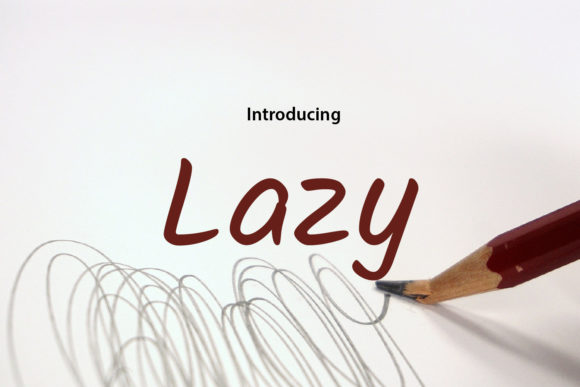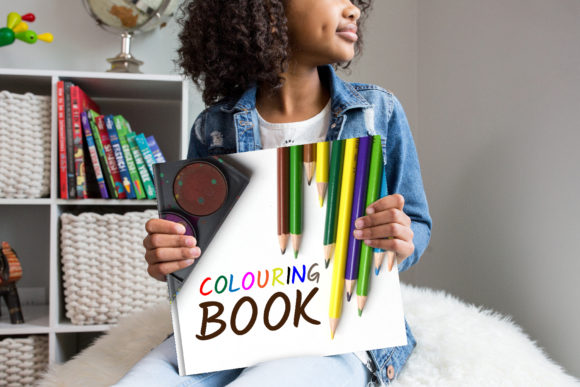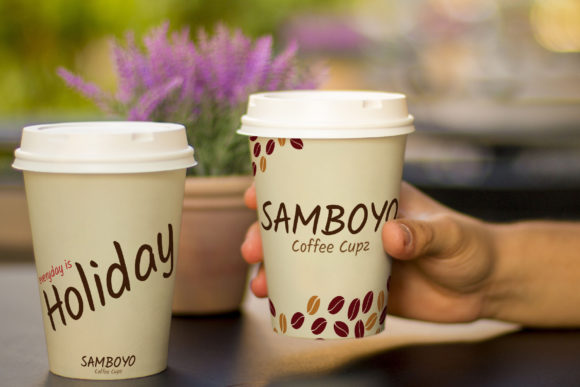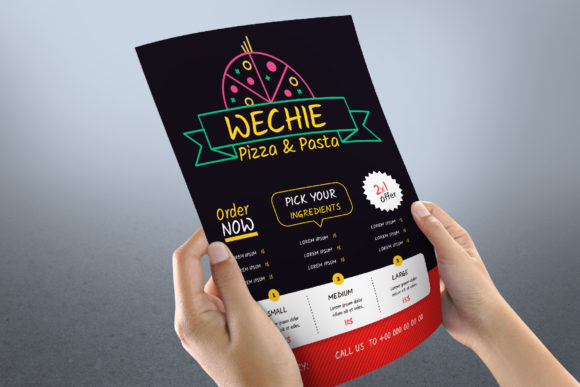
About Lazy Font
Lazy sounds like a delightful and versatile handwritten font that can add a touch of charm and elegance to a wide range of design projects. Its lovely and delicate style makes it perfect for creating captivating and eye-catching designs. Here are some creative ideas on how to use Lazy font to bring your projects to life:
1. Wedding Invitations: Design enchanting and romantic wedding invitations using Lazy font to set the tone for a beautiful and memorable celebration.
2. Thank You Cards: Create heartfelt and stylish thank you cards featuring Lazy font to express gratitude with a touch of elegance.
3. Stationery Art: Use Lazy font to design beautiful stationary art, such as art prints, framed quotes, or motivational posters, adding a touch of sophistication and charm.
4. Social Media Graphics: Create eye-catching and engaging social media posts, stories, and banners using Lazy font to capture attention and convey your message effectively.
5. Branding and Logos: Incorporate Lazy font into branding elements, logos, and business cards to give your brand a sense of personality and elegance.
6. Greeting Cards: Design captivating and personalized greeting cards for all occasions, using Lazy font for a lovely and inviting touch.
7. Blog and Website Design: Apply Lazy font to blog or website titles, headers, and graphics for a charming and welcoming presentation.
8. Event Invitations: Design stylish and creative event invitations, such as birthday parties, baby showers, or special gatherings, using Lazy font to add a touch of elegance and excitement.
9. Menu Design: Create visually appealing and enticing menus for restaurants or cafes using Lazy font to evoke a sense of warmth and sophistication.
10. Packaging Design: Use Lazy font in product packaging design to add a touch of elegance and creativity to your products.
11. Personalized Gifts: Apply Lazy font to create personalized gifts, such as custom stationery, monogrammed items, or custom prints, for a thoughtful and unique touch.
12. Artistic Lettering: Experiment with Lazy font for artistic lettering pieces, combining its delicate style with creative flair.
13. Business Presentations: Incorporate Lazy font into business presentations to add a touch of charm and elegance to your slides.
14. Book Covers: Use Lazy font in book cover designs, whether for novels, poetry books, or children’s literature, to create a captivating and inviting look.
15. Inspirational Quotes: Design inspiring quote graphics using Lazy font to create motivational posts for social media or art prints.
16. Handwritten Notes: Write out handwritten notes or messages in digital art, social media graphics, or printed artworks using Lazy font for a personal and charming touch.
17. Party Decorations: Use Lazy font to create fun and stylish party decorations, such as banners, signs, and place cards, to add a touch of elegance to the celebration.
18. Beauty and Fashion Branding: Incorporate Lazy font into beauty or fashion branding to convey a sense of elegance and sophistication.
19. Craft and DIY Projects: Use Lazy font in craft and DIY projects, such as scrapbooking, card making, or home decor, for a delightful and artistic touch.
20. Inspirational Posters: Design motivational posters or wall art using Lazy font to inspire and uplift your audience.
In summary, Lazy’s lovely and delicate handwritten style makes it a perfect choice for a variety of design projects, from weddings to social media and branding. Its versatile appeal and charming elegance will enhance your creations and leave a lasting impression on your audience. Fall in love with Lazy font and let it elevate your designs to new heights of beauty and creativity.